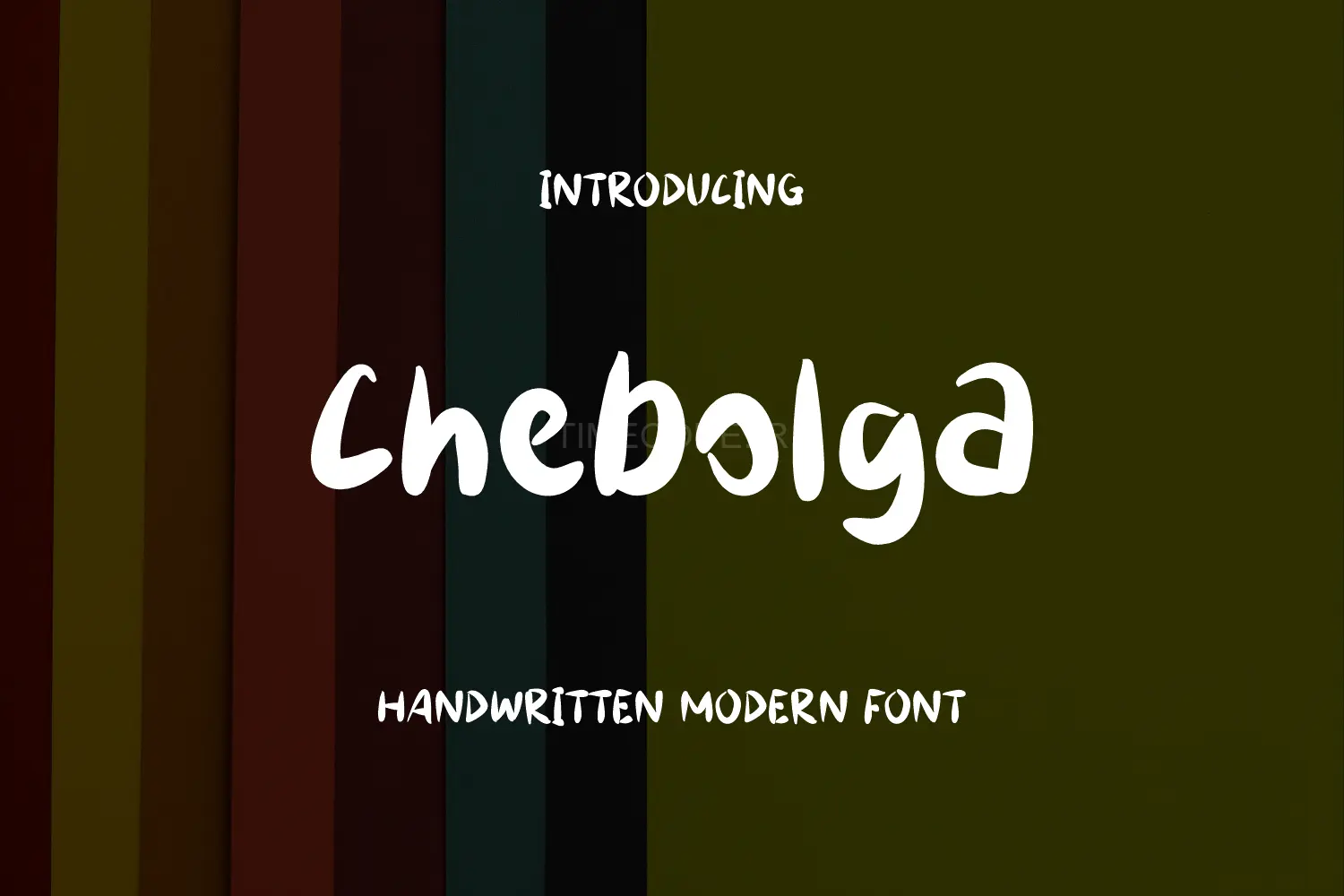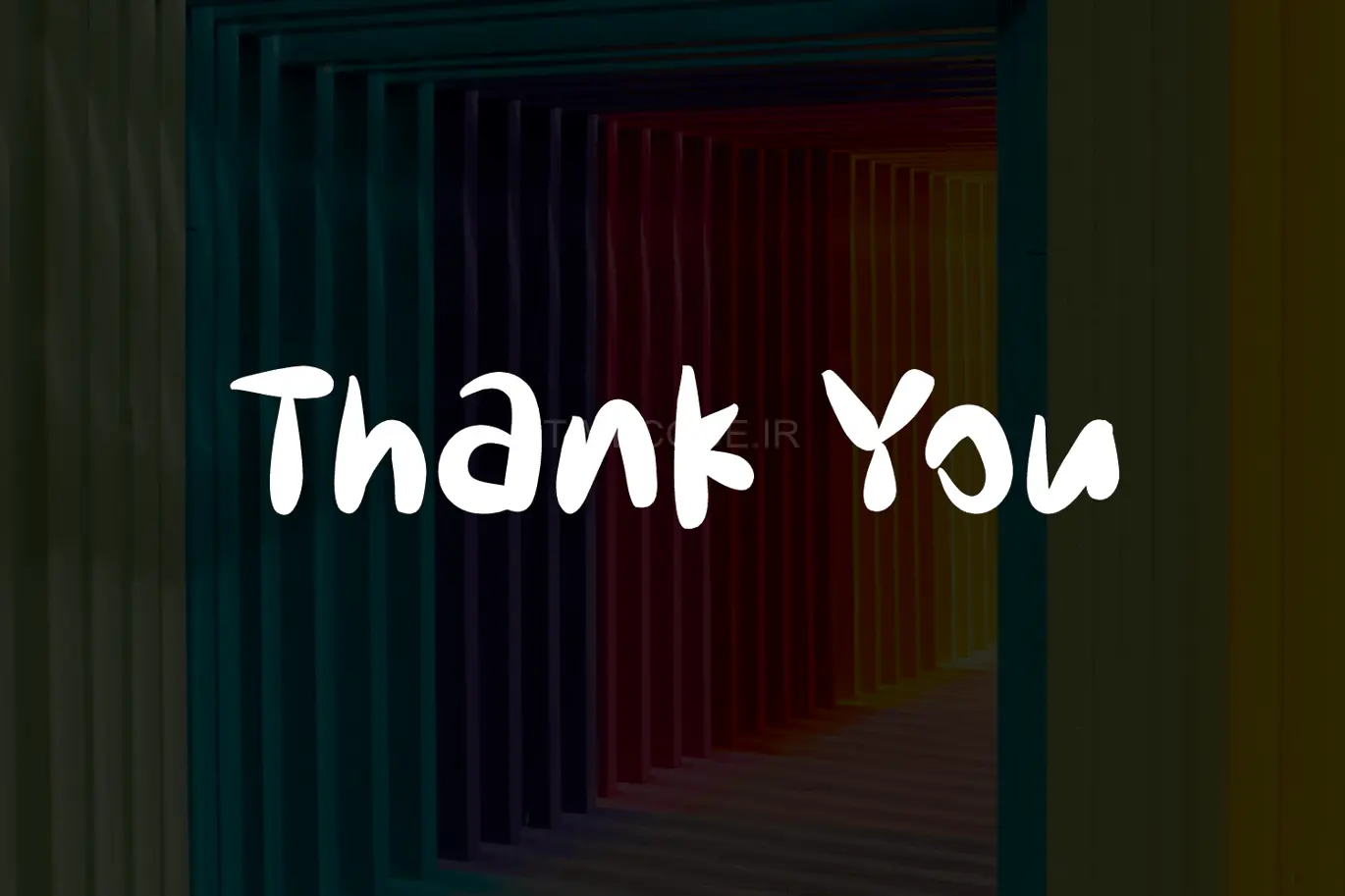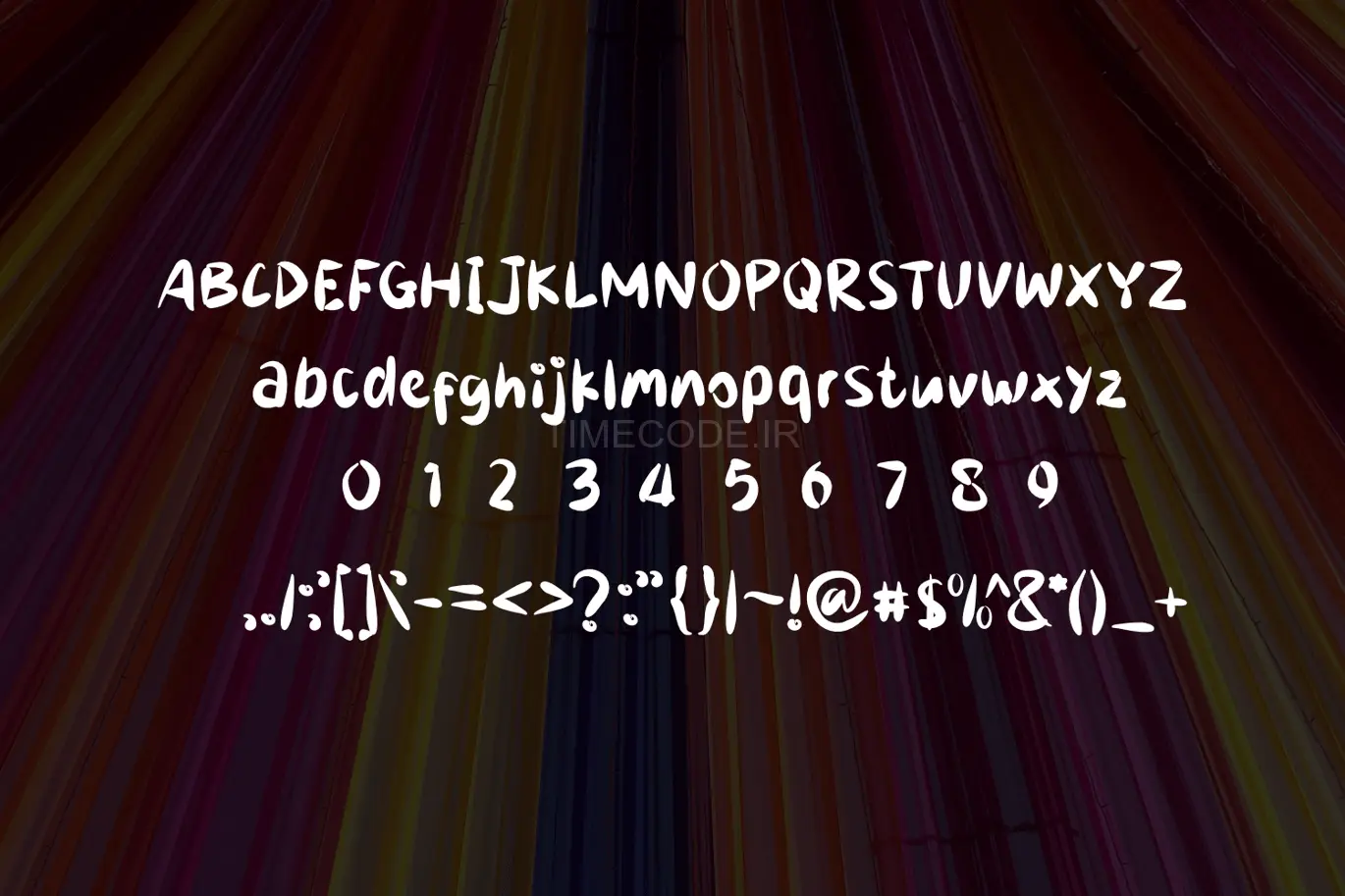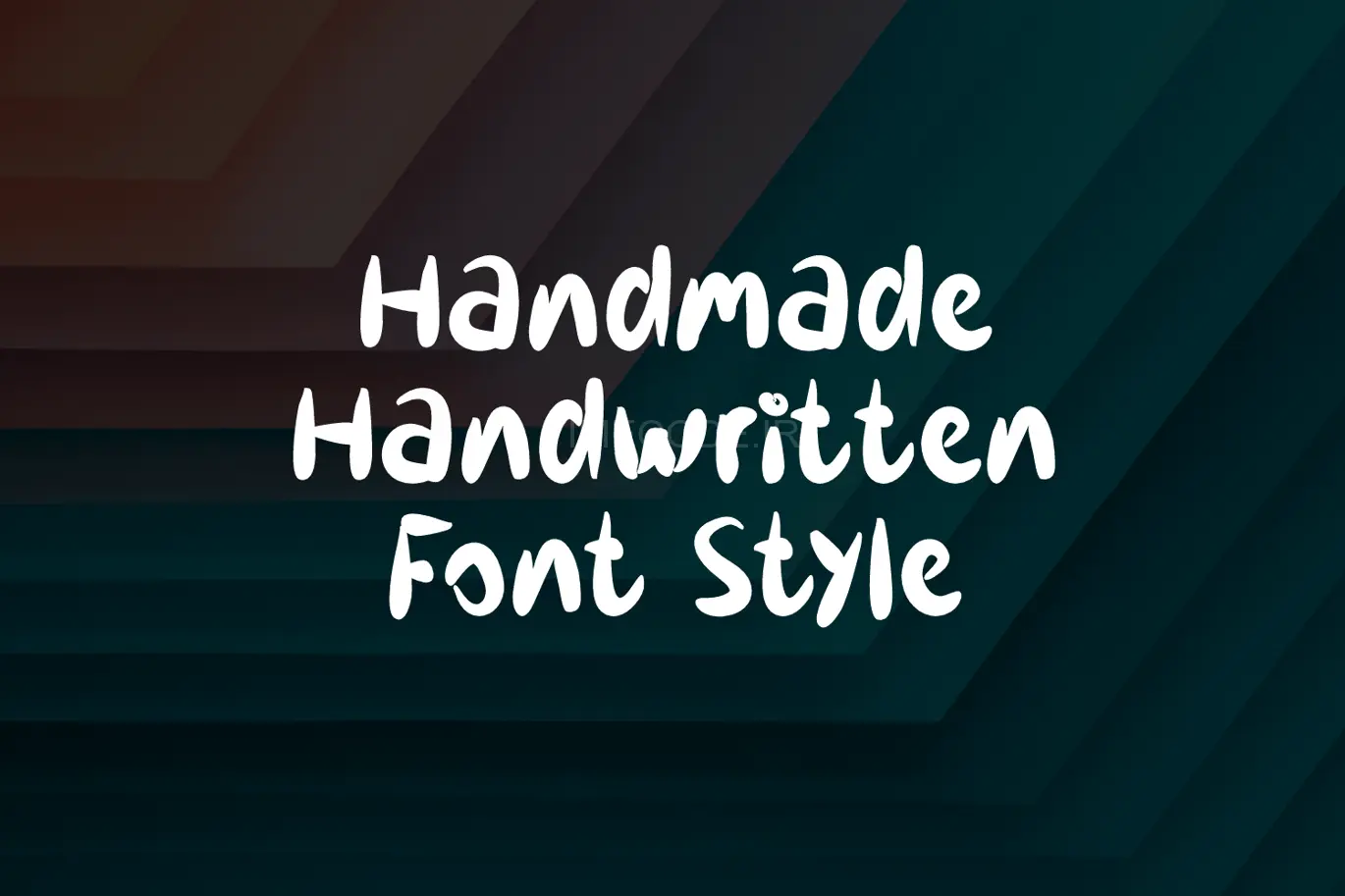
Introducing our new product Chebolga Font
Very suitable for flyer, posters, novel, letterhead, or any design requirements that you want to be awesome. ____________________________________________________________________________________________